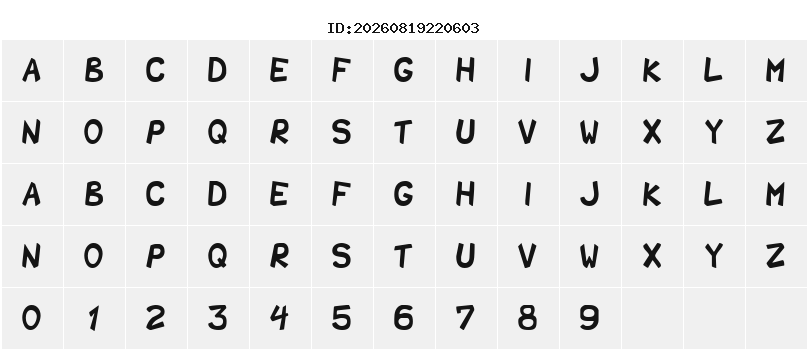
Shark Party Preview
• Font Name: Shark Party
• Font Style: Shark Party
• Full Font Name: Shark Party
• PostScript Name: SharkParty
About Shark Party.ttf
Shark Party.ttf is a modern, elegant sans-serif font designed for ultimate readability and visual harmony. Perfect for branding, headlines, web design, and print materials.